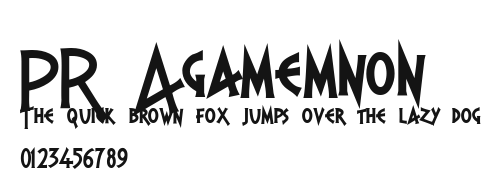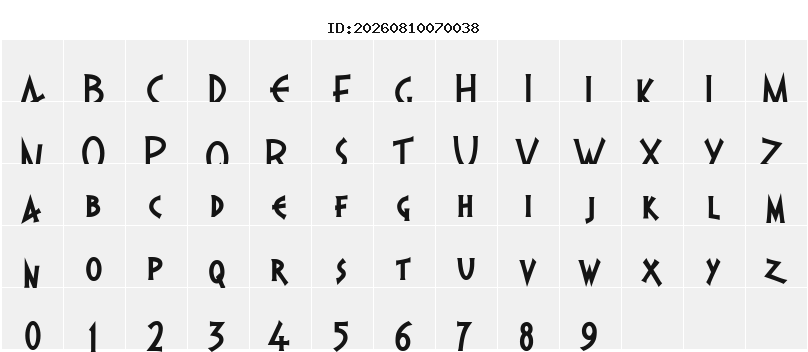
PR Agamemnon  Preview
• Font Name: PR Agamemnon
• Font Style: Bold, Top Lining
• Full Font Name: PR Agamemnon Bold, Top Lining
About PR Agamemnon .ttf
PR Agamemnon .ttf is a modern, elegant sans-serif font designed for ultimate readability and visual harmony. Perfect for branding, headlines, web design, and print materials.